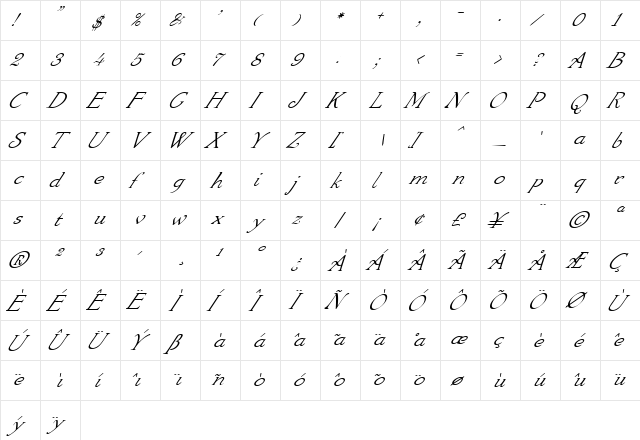
4ArmJoltScriptItalics Regular
Design Context for 4ArmJoltScriptItalics Typeface
4ArmJoltScriptItalics flows with the natural rhythm of handwritten lettering, making it ideal for designs that call for warmth and personal expression.
Font Pairing: Combine 4ArmJoltScriptItalics with a simple geometric sans for maximum contrast — the tension between flowing curves and clean structure is a classic typographic pairing.
Pro Tip: Use 4ArmJoltScriptItalics for short runs of text — names, titles, or taglines. Extended body copy in script faces tires the eye quickly.